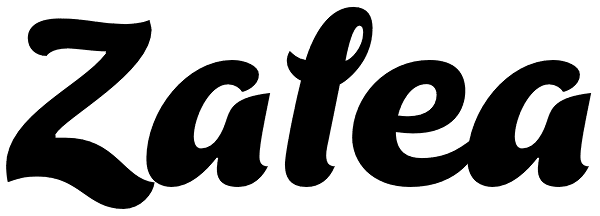
Zalea
Zalea script is an expressive and dynamic font. It has an appealing "punch" characteristic that gives it its charm and strong visual impact. Zalea was specially thought for labelling and packaging design. It has also good legibility for body text...